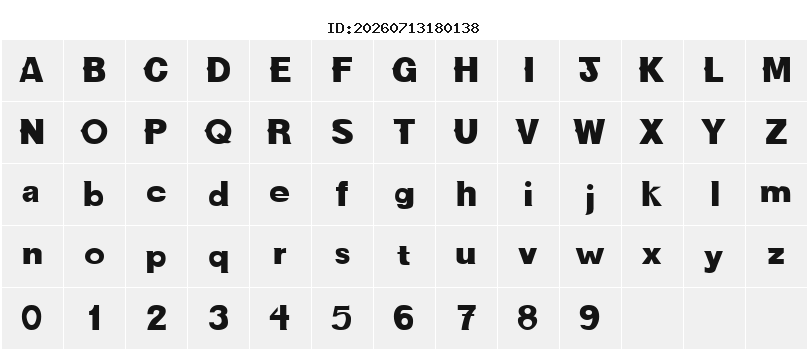
• Font Name: Baikal
• Full Font Name: Baikal
About Baikal.ttf
Baikal.ttf is a modern, elegant sans-serif font designed for ultimate readability and visual harmony. Perfect for branding, headlines, web design, and print materials.